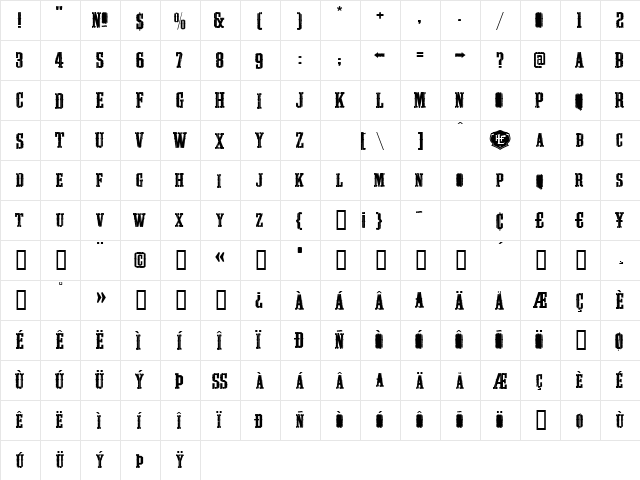
LHF Outlaw ROUGH Roman
Design Context for LHF Outlaw ROUGH Typeface
LHF Outlaw ROUGH embraces imperfection — its rough, textured character adds raw authenticity to designs that want to feel lived-in and unconventional.
Suited to punk-influenced zines, underground music branding, streetwear, and raw, anti-corporate design.
Pro Tip: Pair LHF Outlaw ROUGH with intentionally raw or lo-fi design elements. Fighting against it with overly polished surroundings will undermine its personality.